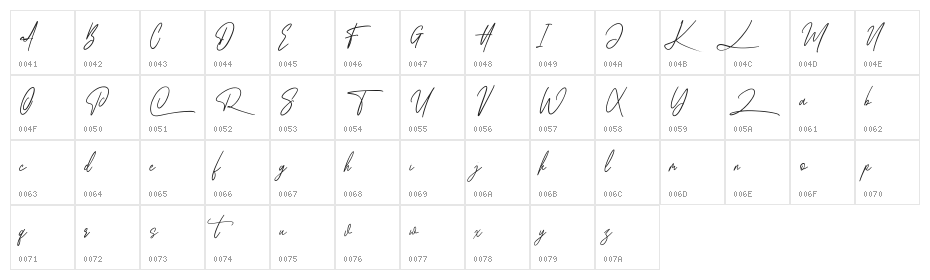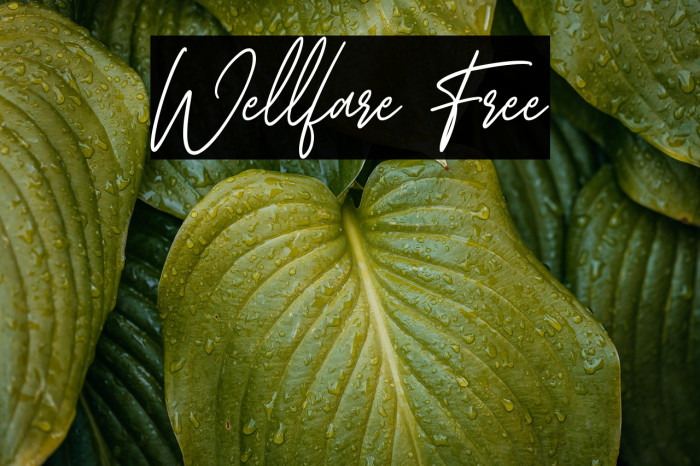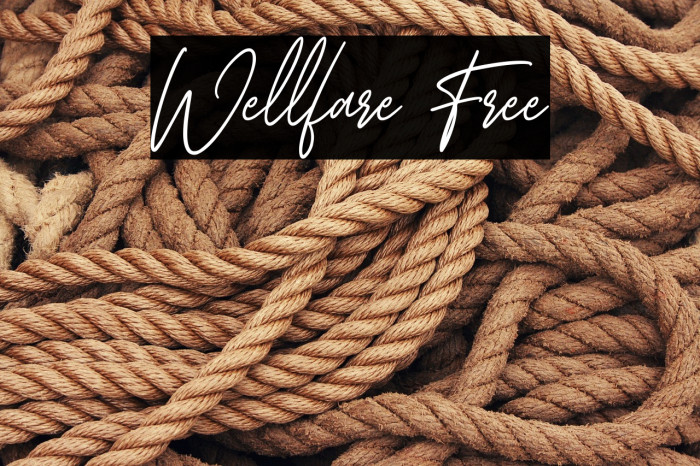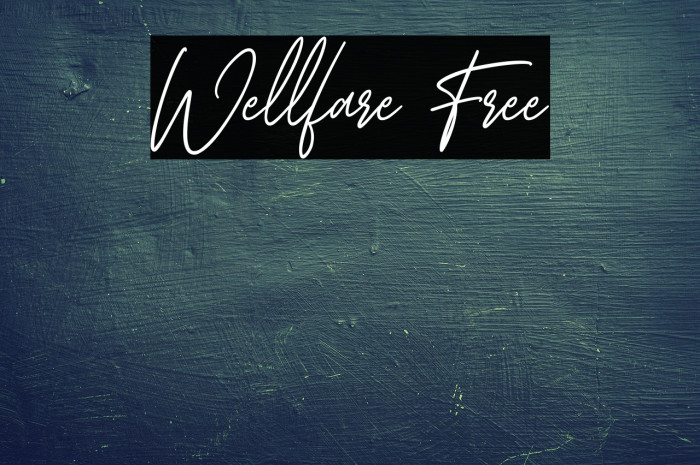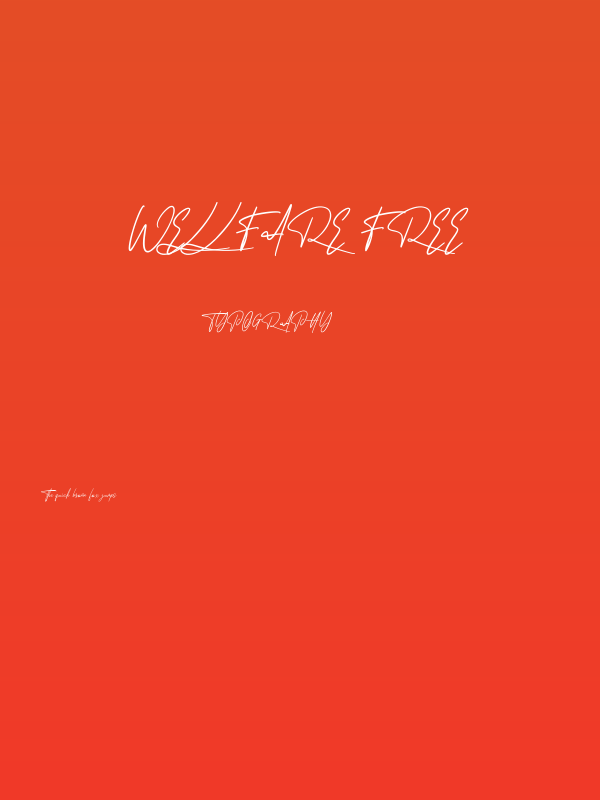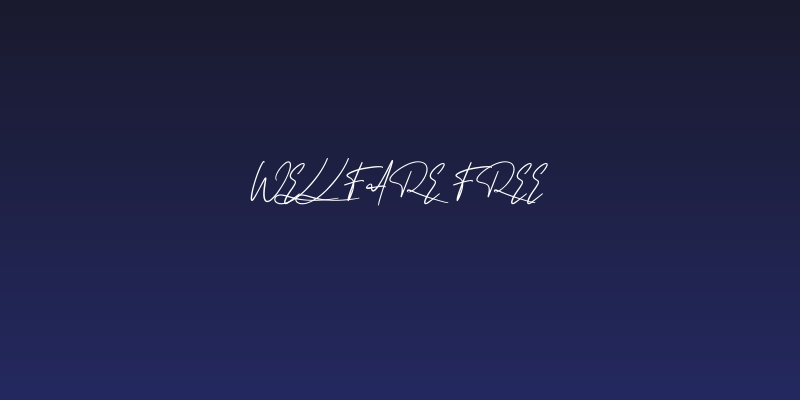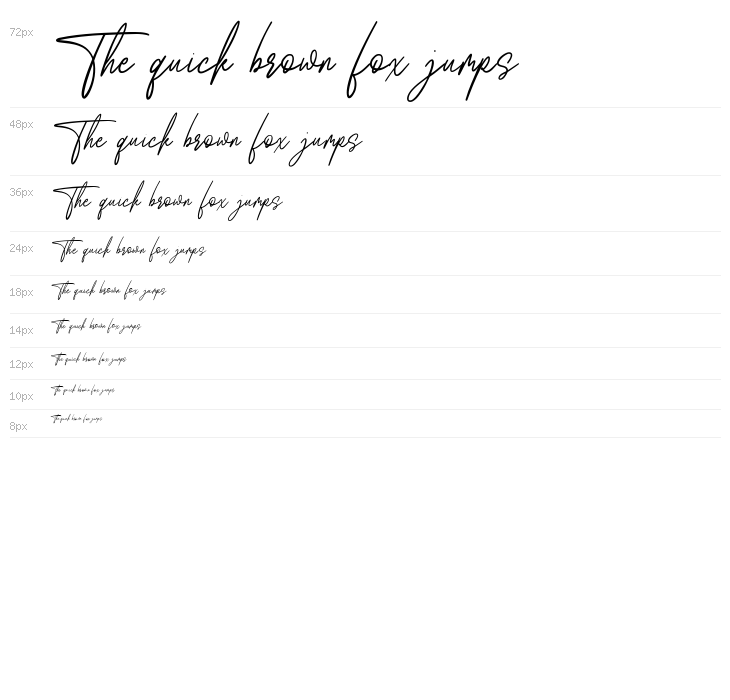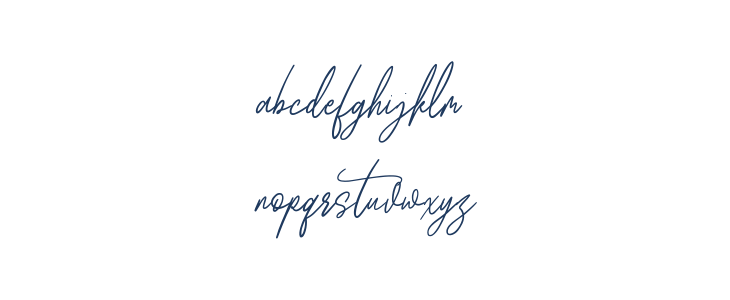
Wellfare Free Font
Wellfare Free Description
This font exudes a dynamic and elegant script style, characterized by its fluid and cursive strokes. The letters are interconnected, creating a seamless flow that mimics natural handwriting. The uppercase letters are bold and expressive, with exaggerated loops and swirls that add a touch of sophistication. The lowercase letters maintain a consistent style, with smooth curves and a slight slant that enhances readability. The numerals and special characters are crafted with the same attention to detail, ensuring a cohesive appearance throughout. This font is perfect for projects that require a personal and artistic touch, such as invitations, branding, and creative designs.
| Proposed Projects | Ideal for wedding invitations, personal branding, artistic projects, and elegant stationery. |